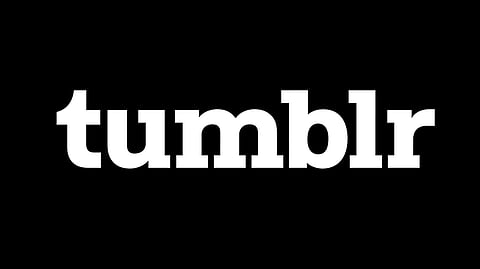
A typeface is not just the namesake of a brand. It instead reveals the brand's story, indicating its nature and rendering it tangible for its users. Tumblr is one such illustration, illustrated by Dinamo.
Doug Richard, Tumblr's Creative Director, was on the look-out for a change in their typeface that could work for their app as well as account for all of their brand and product design needs to universalize the brand collateral. The need was for a typeface that would be purely functional for UI, with a flexible personality across brand materials.
The requirement was for the kind of a typeface that was neutral enough to represent a diverse mix of communities, individuals and interests, would compliment the logo and also differentiate them from competitor products and brands.
Looking at the typefaces matching the requirement list, Tumblr decided on using the typeface Favorit offered by Dinamo and customising it to their specific needs.
Favorit has a friendly yet commanding presence that successfully balances foundational sans serif attributes with assertive, contemporary geometry.
Dinamo, a swiss type design agency, in collaboration with Tumblr, worked on Favorit, cut new characters, interpolated new weights, introduced new punctuation and scaled its overall appearance to successfully create Favorit-Tumblr, a 4-weight, 16-style typeface that was functional yet expressive and matching the requirement criteria.
The Favorit Tumblr family offers screen optimized weights in both the Standard and Lining versions with corresponding italics ensuring flawless legibility.
The lining weight interacts with the font's descenders in a playful but methodical fashion, which has been particularly useful across product explorations; allowing to differentiate usernames, hashtags and links from other words.
Favorit-Tumblr's Lining style contextually merges characters with an integrated underline to create new shapes. By default, it's ideal for simple text highlighting, while with the "Rock'n'Roll" feature enabled it merges all initial and final word characters with the underline in a more exaggerated way.
The Favorit-Tumblr styles feature distinct glyph amendments like: custom cut characters, two sets of circled numbers optimized for in-app use, in-line logos, expressive alternative quotation marks and redesigned ligatures.
For the logo, the "t" and "r" characters were re-cut to stylistically align with defining attributes of the custom typeface. Other letters received more subtle updates; cleaning up overly nuanced attributes and bringing a more architectural feel to the mark.
Optimizations such as the elimination of curved intersections, helped to optimize the logo for small screens without losing its essence. A strategical step to remove the logo's period allowed the logo and typeface to seamlessly integrate across all naming conventions.
Tumblr began quietly implementing first cuts of the font in June of 2017, while its evolution was still in process over the following year, allowing it to mature alongside their visual language.
In June of 2018, Tumblr rolled out the new logo, soon to be followed by the full-scale implementation of Favorit-Tumblr across all their web and app products.
Client: Tumblr
Agency: Dinamo
Creative Director: Doug Richard
Art Directors: Erik Blad, Alessandra Bautista
Designer: Julianne Waber
Typeface Design: Johannes Breyer, Fabian Harb, Robert Janes
Mastering: Chi-Long Trieu